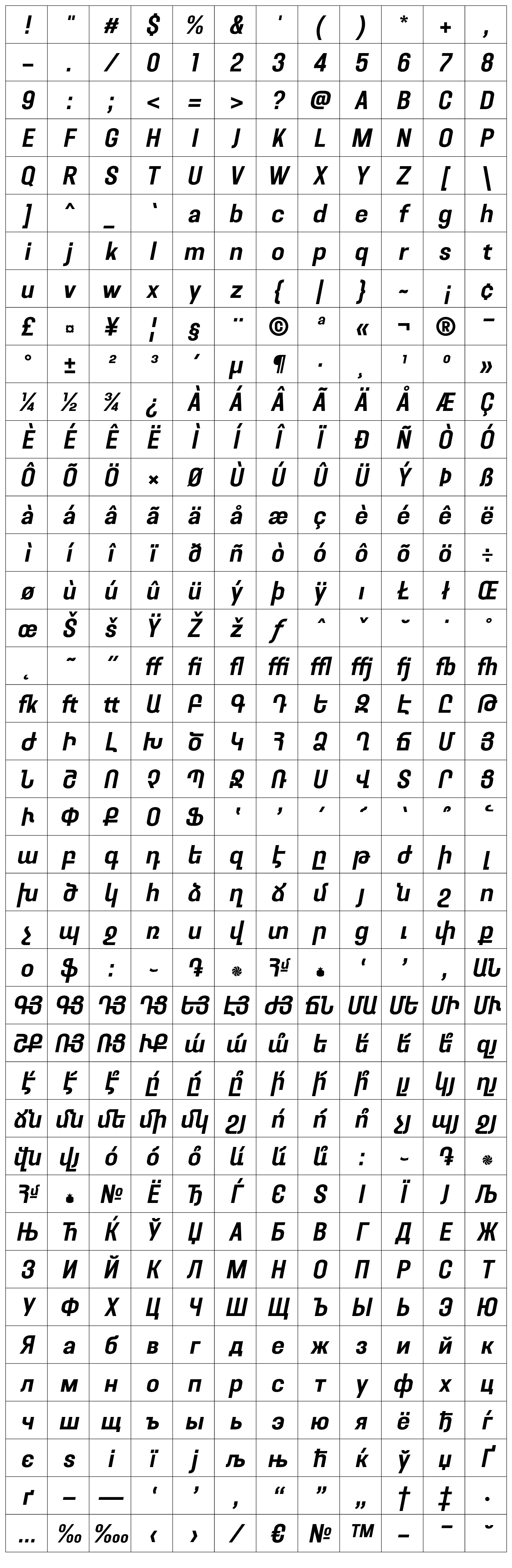
GHEA Van DemiBold Italic
GHEA Vant is a Sans Serif font that is suitable for using in texts, titles, posters and advertisements.
It includes Armenian, Cyrillic and Latin Central European language systems.
The font includes Basic and many Advanced Ligatures for Latin and Armenian.
GHEA Van looks very nice in small and big sizes.